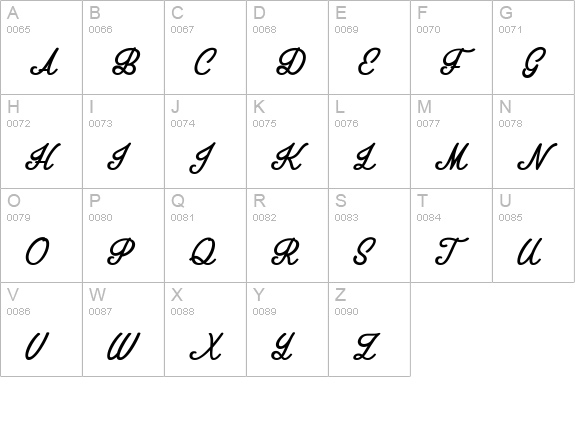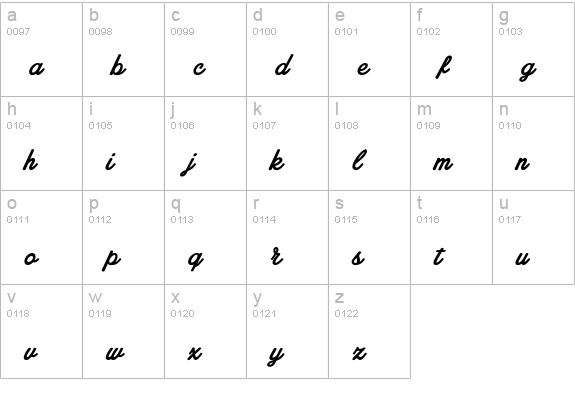
Amplify Personal Use Only Font Details
Introducing Amplify Personal Use Only font, a sleek and stylish typeface that exudes modern elegance. This versatile font is perfect for adding a touch of sophistication to your personal projects. Whether you're designing stunning invitations, crafting eye-catching logos, or creating captivating social media posts, Amplify Personal Use Only font is your go-to choice. With its clean lines and contemporary vibes, this font sets the stage for a visually stunning presentation. Its bold and distinct letterforms effortlessly capture attention, making your message stand out from the crowd. From headlines to body text, Amplify Personal Use Only font delivers a seamless reading experience with its balanced proportions and impeccable legibility. But what makes Amplify Personal Use Only font even more enticing? It's absolutely free! Yes, you read that right. This incredible font is freely available to download at FontsMarket.com. No need to break the bank or compromise on quality – Amplify Personal Use Only font offers the best of both worlds. Designed with utmost precision and attention to detail, Amplify Personal Use Only font is a true gem in the world of typography. Its extensive character set includes uppercase and lowercase letters, numbers, punctuation marks, and special symbols, ensuring that it caters to all your creative needs. Whether you're a professional designer or a passionate hobbyist, Amplify Personal Use Only font empowers you to unleash your creativity without any limitations. Its seamless compatibility with various design software and platforms allows for effortless integration into your projects. So why wait? Download Amplify Personal Use Only font today and elevate your designs to new heights. Experience the power of professional typography at your fingertips, all for free. Head over to FontsMarket.com and get your hands on this exceptional font – your creative endeavors are about to reach their full potential with Amplify Personal Use Only font.